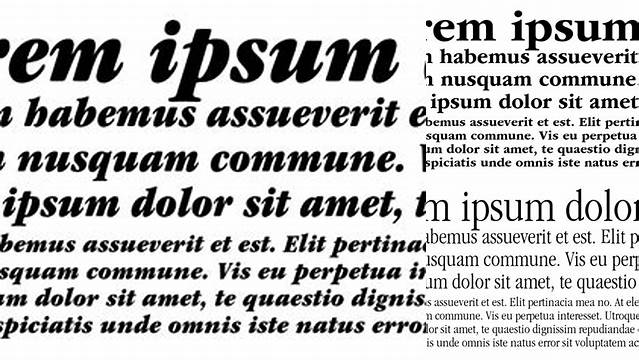
Introduction to ITC Garamond Std Font
ITC Garamond Std is a timeless and elegant typeface that has been a favorite among designers for decades. If you're looking for a font that exudes sophistication and readability, ITC Garamond Std is an excellent choice. This comprehensive guide will walk you through everything you need to know about this classic font, including its history, characteristics, where to find free downloads, and how to use it effectively in your projects. So, whether you're a seasoned designer or just starting, let's dive in and explore the world of ITC Garamond Std, guys!
The ITC Garamond Std font family is a refined and versatile typeface that has become a cornerstone in the world of typography. Originally designed by Tony Stan in the 1970s for the International Typeface Corporation (ITC), this font is a modern adaptation of the classic Garamond typeface, which dates back to the 16th century. The Garamond family of fonts is renowned for its elegance, readability, and timeless appeal. ITC Garamond Std builds upon this legacy, offering a contemporary twist that makes it suitable for a wide range of applications, from print to digital media. Its clean lines and balanced proportions contribute to a polished and professional look, making it a go-to choice for designers and typographers around the globe. The popularity of ITC Garamond Std stems from its ability to convey both authority and warmth, making it ideal for everything from corporate branding to literary works. Its versatility is further enhanced by the variety of weights and styles available within the family, including regular, bold, italic, and condensed versions. This allows designers to create visually interesting and cohesive layouts while maintaining a consistent typographic voice. In the following sections, we will delve deeper into the history of ITC Garamond Std, its key characteristics, and how to effectively incorporate it into your design projects. So, stay tuned to learn more about this exceptional typeface and how it can elevate your work. Let’s explore the unique qualities that make ITC Garamond Std a favorite among professionals.
History and Evolution of ITC Garamond
The history of ITC Garamond is a fascinating journey through the evolution of typography, guys. To truly appreciate ITC Garamond Std, it's essential to understand its roots and how it has evolved over time. The story begins in the 16th century with Claude Garamond, a French type designer who created the original Garamond typeface. Claude Garamond's designs were known for their elegance, clarity, and humanist qualities, and they quickly became a standard in the printing industry. Over the centuries, Garamond's designs were reinterpreted and adapted by various type foundries, each adding their own unique touch. ITC Garamond Std is a modern interpretation of this classic typeface, designed by Tony Stan in the 1970s for the International Typeface Corporation (ITC). Stan's goal was to create a version of Garamond that was both faithful to the original design and suitable for contemporary use. He retained the elegance and readability of the original while making subtle adjustments to improve its performance in modern printing and digital environments. One of the key features of ITC Garamond Std is its slightly condensed proportions, which make it more space-efficient than some other Garamond variations. This makes it a great choice for projects where space is at a premium, such as magazines, newspapers, and books. The font also features a range of weights and styles, including regular, bold, italic, and condensed versions, providing designers with a versatile toolkit for creating visually appealing and cohesive layouts. The evolution of ITC Garamond reflects the ongoing quest to balance tradition and innovation in typography. By understanding the history of this typeface, designers can make informed decisions about when and how to use it effectively. In the next section, we'll explore the key characteristics of ITC Garamond Std in more detail, so you can get a better sense of its unique personality and capabilities. So, stick around and let’s get into the details of what makes ITC Garamond Std special.
Key Characteristics and Features
When we talk about the key characteristics of ITC Garamond Std, there are several distinct features that set it apart, guys. ITC Garamond Std is renowned for its elegance, readability, and versatility, making it a favorite among designers for a wide range of applications. One of the most notable features of ITC Garamond Std is its classic, humanist design. The typeface is characterized by its graceful curves, balanced proportions, and subtle variations in stroke weight. These elements combine to create a font that is both visually appealing and highly readable, even in large blocks of text. The serifs in ITC Garamond Std are particularly noteworthy. They are sharp and well-defined, adding to the font's overall sense of sophistication and formality. At the same time, the serifs are not overly exaggerated, which helps to maintain a clean and modern look. Another important characteristic of ITC Garamond Std is its slightly condensed proportions. This means that the letters are a bit narrower than in some other Garamond variations, allowing for more text to fit on a page or screen. This can be especially useful in projects where space is limited, such as magazines, newspapers, and websites. ITC Garamond Std also stands out for its versatility. The typeface is available in a range of weights and styles, including regular, bold, italic, and condensed versions. This allows designers to create visually interesting and dynamic layouts while maintaining a consistent typographic voice. For example, the regular weight is ideal for body text, while the bold weight can be used for headings and subheadings. The italic style adds a touch of elegance and can be used for emphasis or captions. The condensed version is perfect for situations where space is tight, such as in tables or charts. In addition to its aesthetic qualities, ITC Garamond Std is also known for its excellent legibility. The typeface is designed to be easy to read in a variety of sizes and formats, making it a great choice for both print and digital media. This is due in part to its balanced proportions and clear letterforms, which help to reduce eye strain and improve reading comprehension. All these features combine to make ITC Garamond Std a truly exceptional typeface. In the next section, we'll discuss where you can find free downloads of ITC Garamond Std, so you can start using it in your own projects.